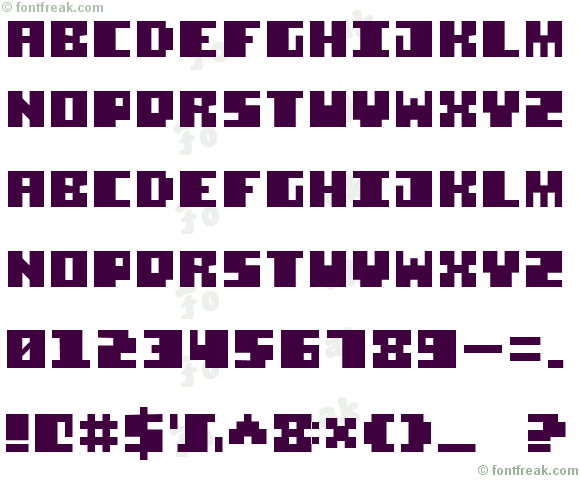
Square Stone-7
Square Stone-7 by Style-7 is a striking display font that captures attention with its bold, geometric design. This font belongs to the decorative category, characterized by its unique square shapes and sturdy appearance. The stroke weight is consistent throughout, providing a solid and robust look, while the lack of contrast adds to its modern aesthetic. The spacing between the letters is well-balanced, ensuring legibility even in larger sizes, and the overall design reflects a contemporary style that resonates with current graphic trends.
Ideal for various creative projects, Square Stone-7 stands out in applications such as movie posters where it can convey a sense of strength and urgency. It is also a great choice for branding in the technology sector, as its clean lines evoke a sense of innovation. Additionally, this font can elevate restaurant menus, giving them a modern twist that captures the attention of diners. Small business owners looking to create eye-catching promotional materials will find this font especially useful, as it embodies a strong visual identity. Content creators can also leverage Square Stone-7 for social media graphics or video titles, making their content more engaging and visually appealing.